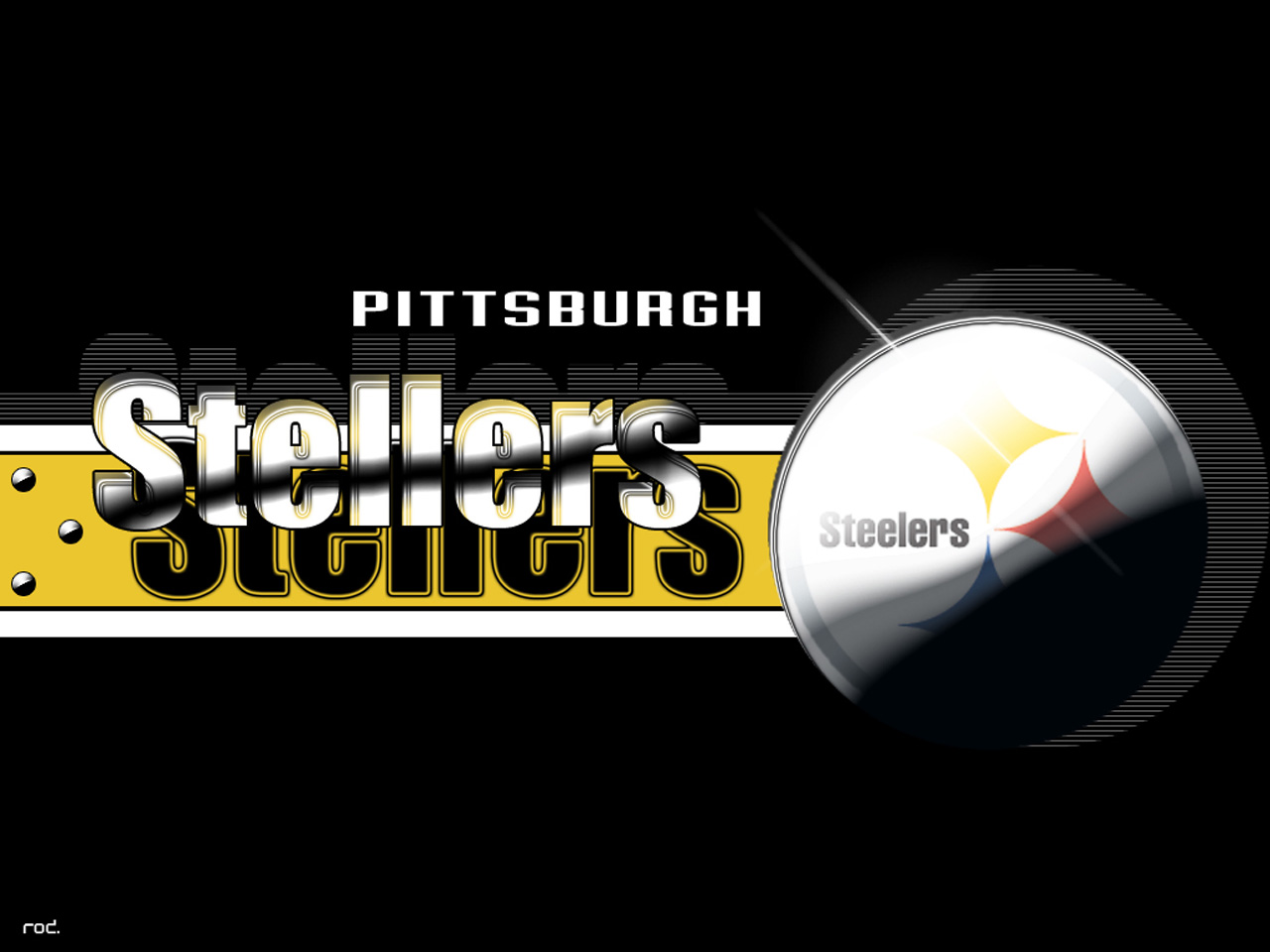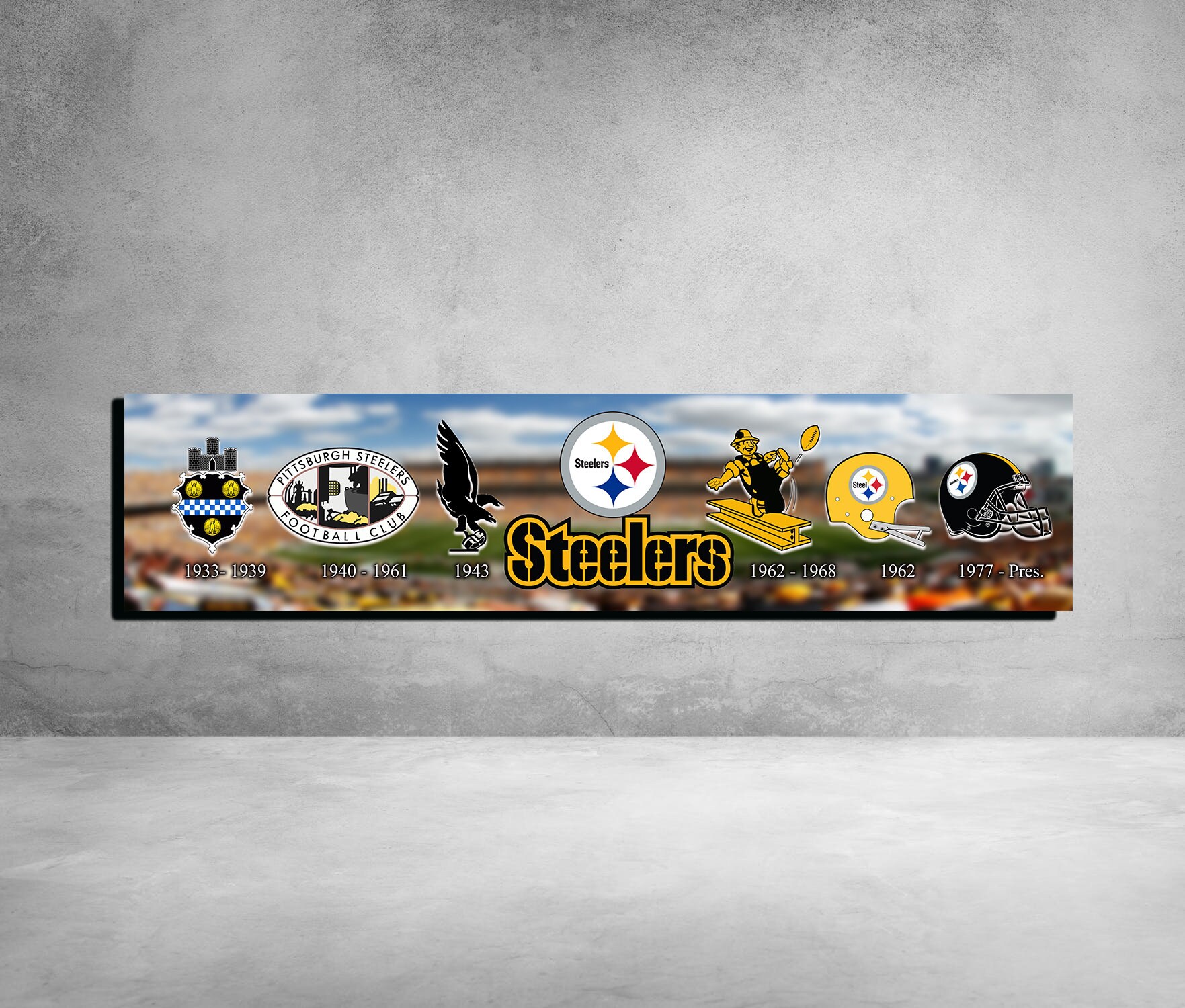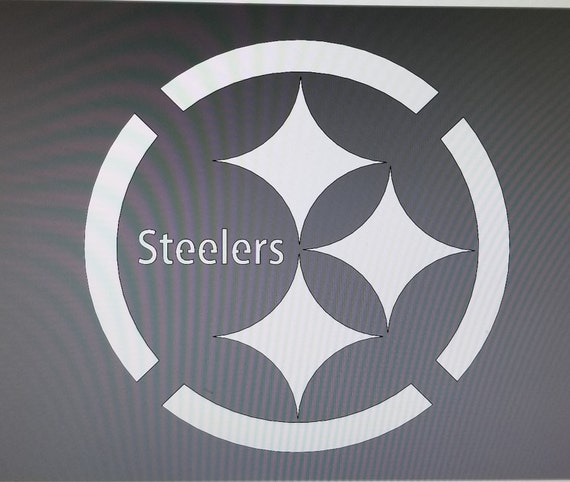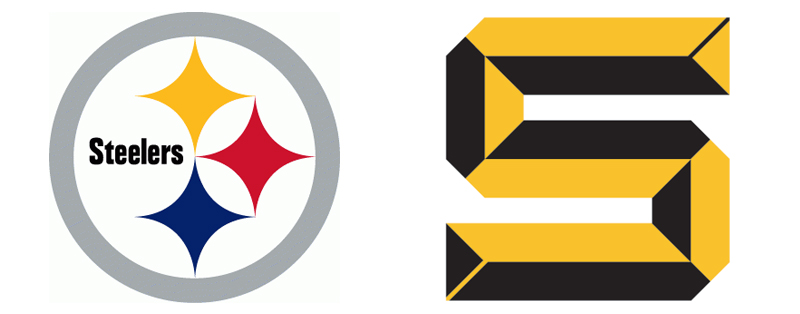
We have to do an NFL logo of our choice I chose the Steelers but I feel like there are no fonts available to the public at least on the internet. Feb 14 2008 2 Google it.
Gunplay is a font that is used for the logo of the Steelers football team. Feb 14 2008 1 Ive found a few fonts that are close but I have been unable to find the actual font used in the logo. Steelers font 1.
Modified t Suggested font. Feb 14 2008. The t and r are all wrong.
Based on a logo originated by U. The logo Indeed uses the Arial Rounded MT Bold font. A font based on the Pittsburgh Steelers logo.
The font used for Pittsburgh Steelers logo is very similar to Arial Condensed Bold which is a grotesque sans serif font designed by Patricia Saunders Robin Nicholas and published by Monotype. Its for my computer graphics class. Due to this big form of glyphs in a single typeface.
This logo font was created by Ray Larabie.